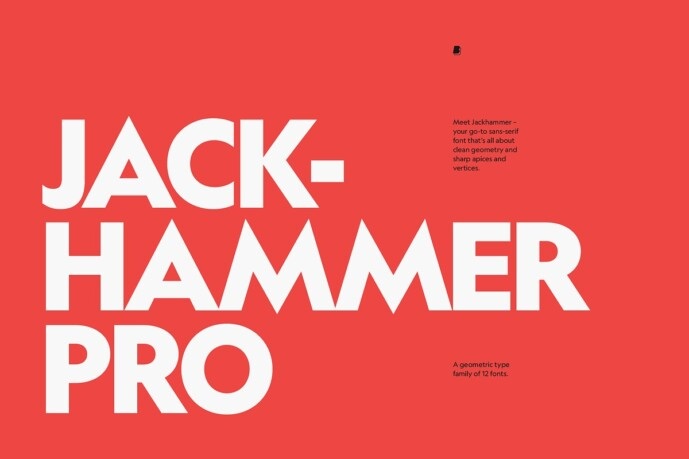
Jackhammer Pro Font
Jackhammer Pro Font Family—A modern sans-serif typeface that features clean geometric lines paired with kicking apices and vertices. Extending from super thin to heavy and black, each weight has been carefully crafted in order to bring a new look to type design: it is perfect for bridal party invitations or propagating into a powerful brand identity.
Jackhammer Pro’s huge character set of 306 language coverage makes it as suitable for worldwide communication as it is handsome.
When you’re putting together a website, trying to make posters that will pop off the page or slapping up some boffo aesthetics for your next project, Jackhammer Pro is there to help you.
Jackhammer Pro Sans Serif Font Family